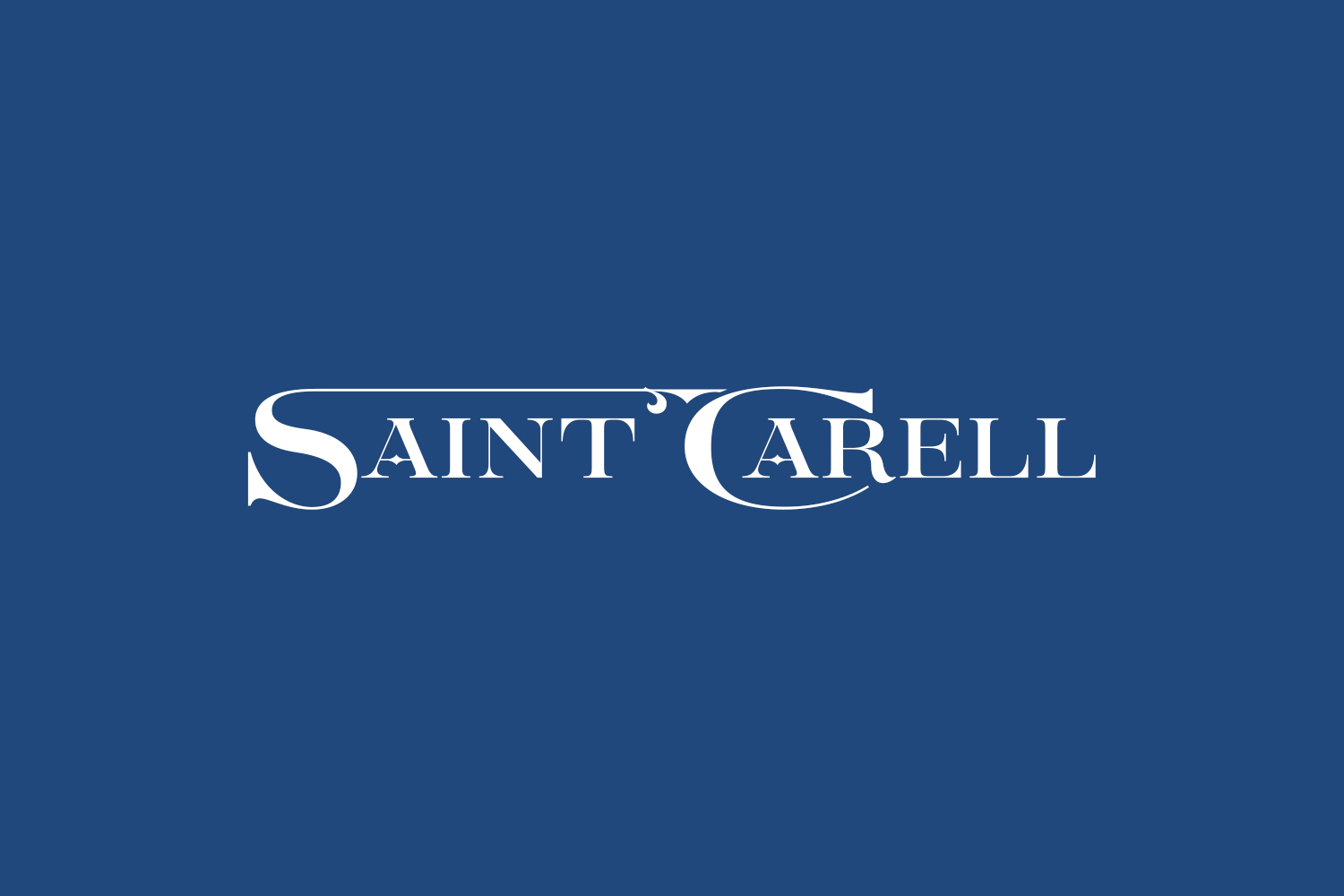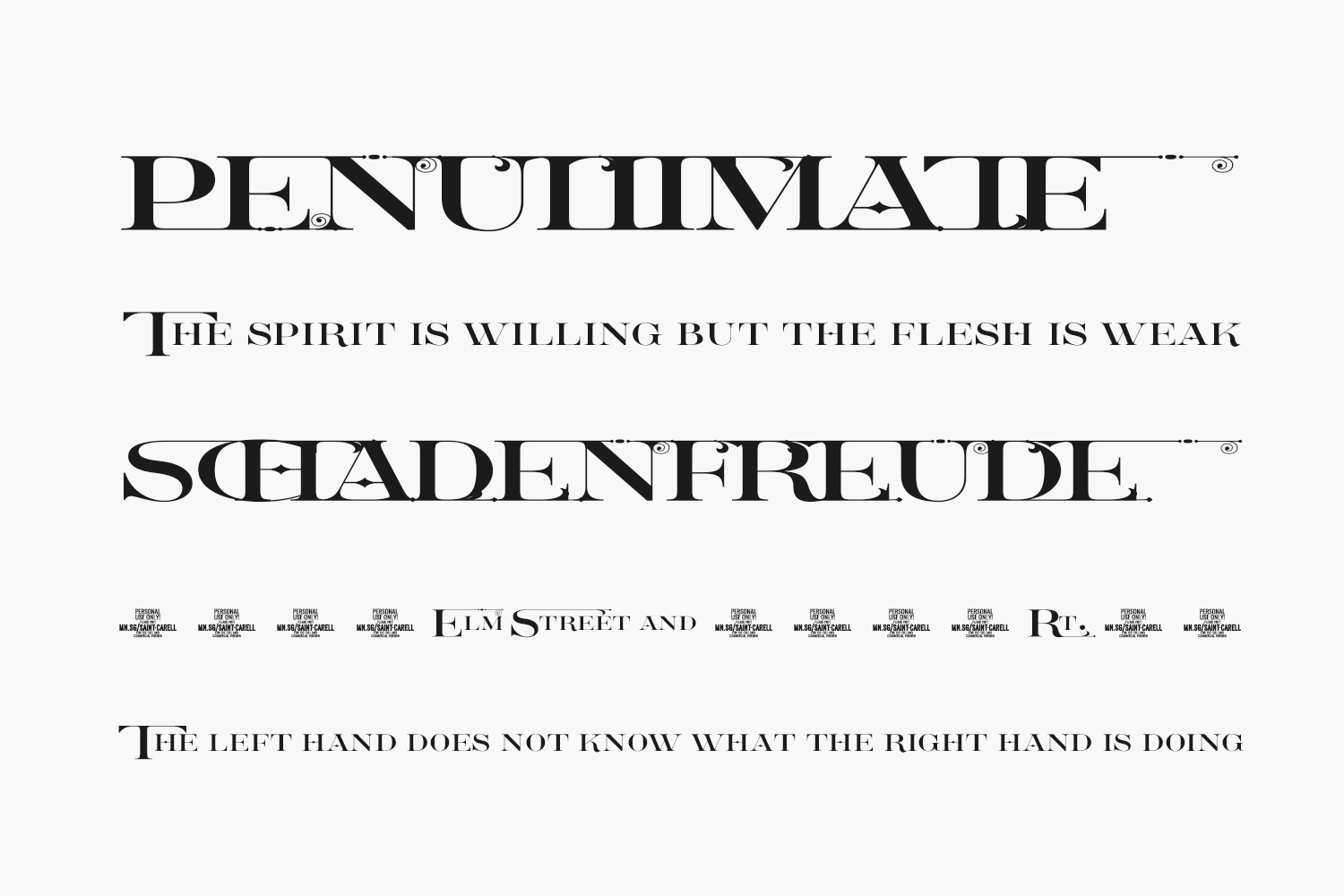
Saint Carell Free Font is the epitome of retro sophistication. This fancy font takes you back in time with its intricate and ornate letterforms that exude an air of vintage elegance. Each character has been crafted with care and attention to detail, creating a visually stunning typeface that is both playful and refined.
With its unique style, Saint Carell Free Font is a versatile font that can be used for a variety of design projects. Whether you’re creating a vintage poster or designing a retro-inspired logo, this font will elevate your work to the next level. It’s perfect for designers who want to add a touch of glamour and nostalgia to their designs, while also maintaining a modern and fresh aesthetic.